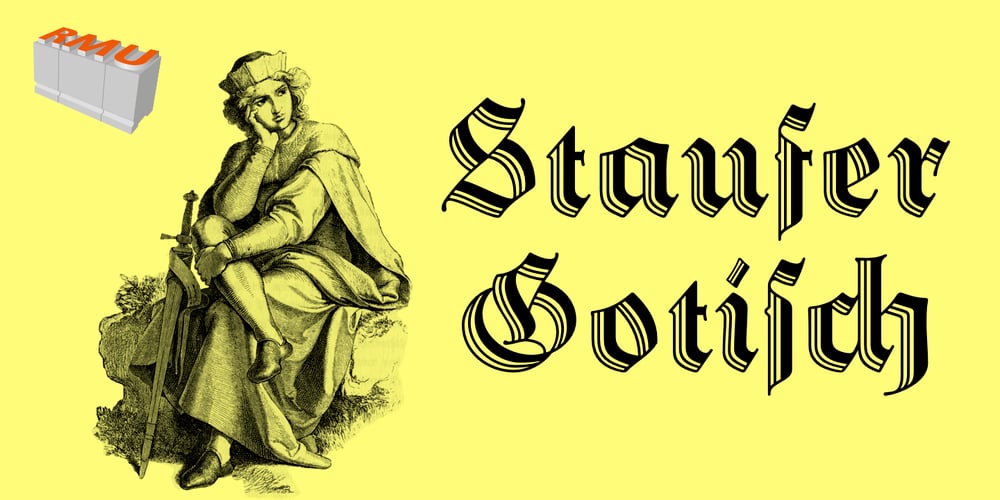
Staufer Gotisch
Staufer Gotisch Font Family was designed by Ralph M. Unger and published by RMU. Staufer Gotisch contains 1 styles and family package options. Thannhaeuser’s mid-1930s display blacklettr font as a fresh and extended redesign called Staufer Gotisch. This font contains a bunch of useful ligatures, and it is recommended to activate both Standard and Discretionary Ligatures. To reach the numero sign, type the combination N-o-period und activate the OT feature Ordinals. The # key is occupied by the round s.